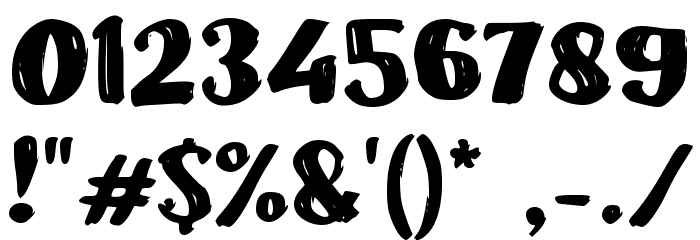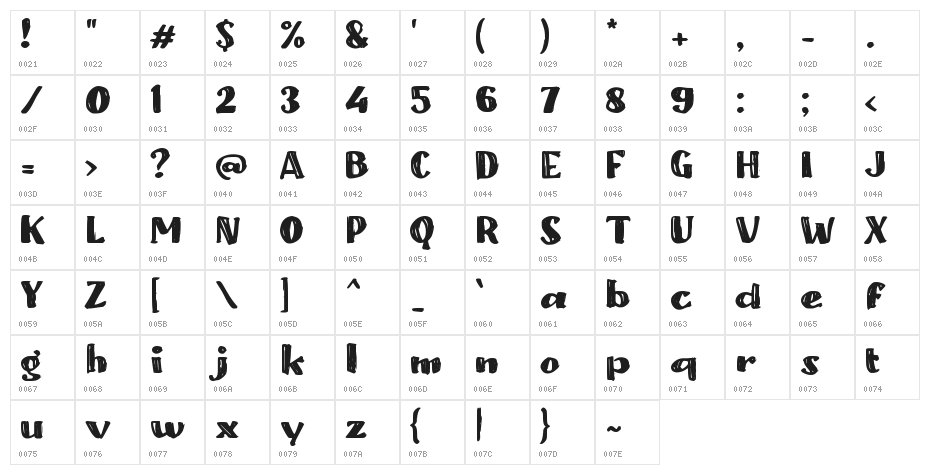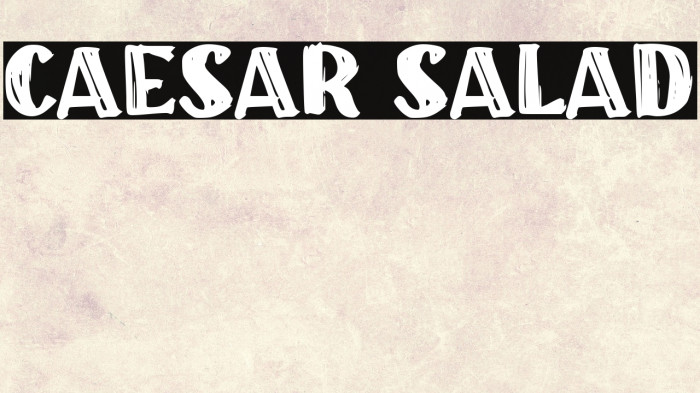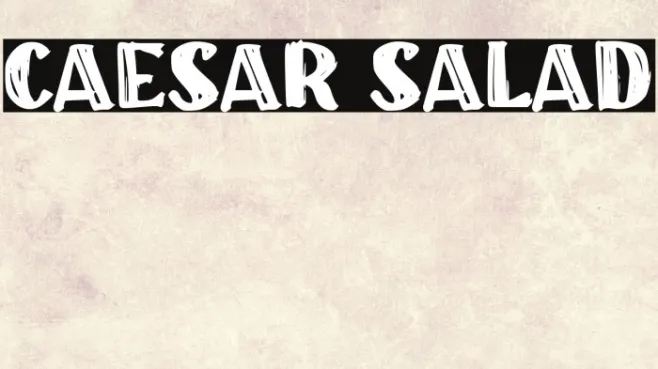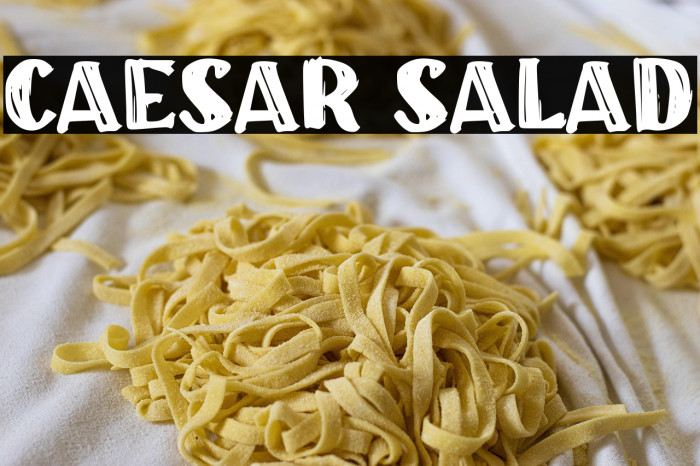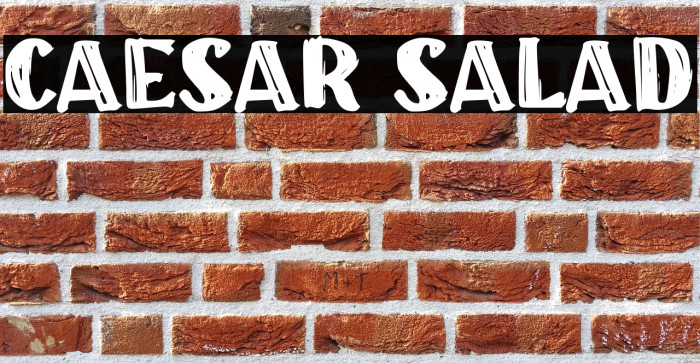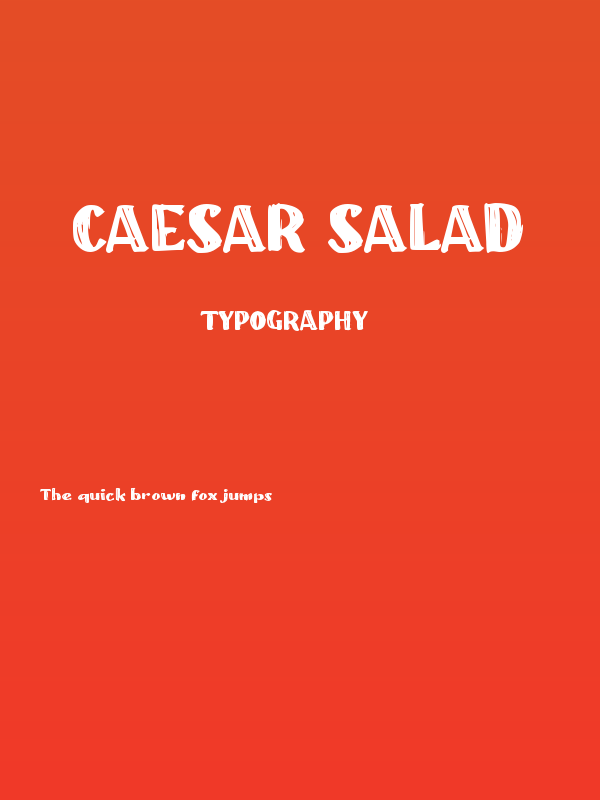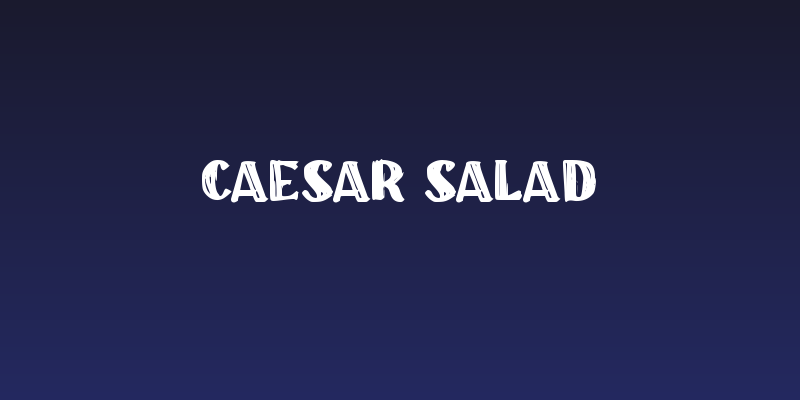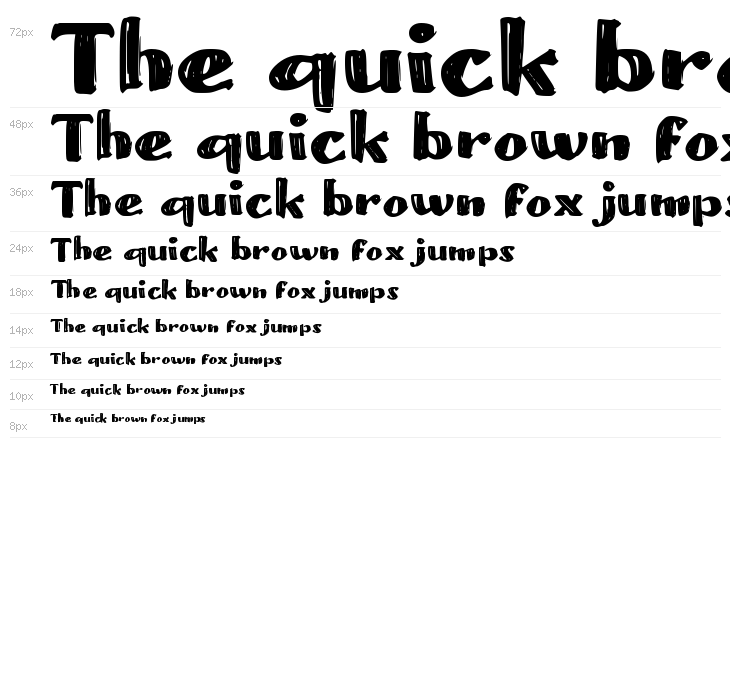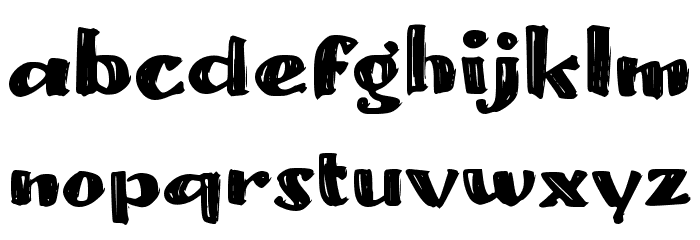
CAESAR SALAD Font
CAESAR SALAD Description
This font features a bold and expressive style with a hand-painted appearance. The characters have a playful and dynamic quality, with irregular edges and a slightly distressed texture that adds to its artistic charm. The uppercase and lowercase letters maintain a consistent style, with a slight slant that gives a sense of movement. The numbers and special characters follow the same design principles, ensuring a cohesive look across all elements. This font is ideal for projects that require a creative and informal touch.